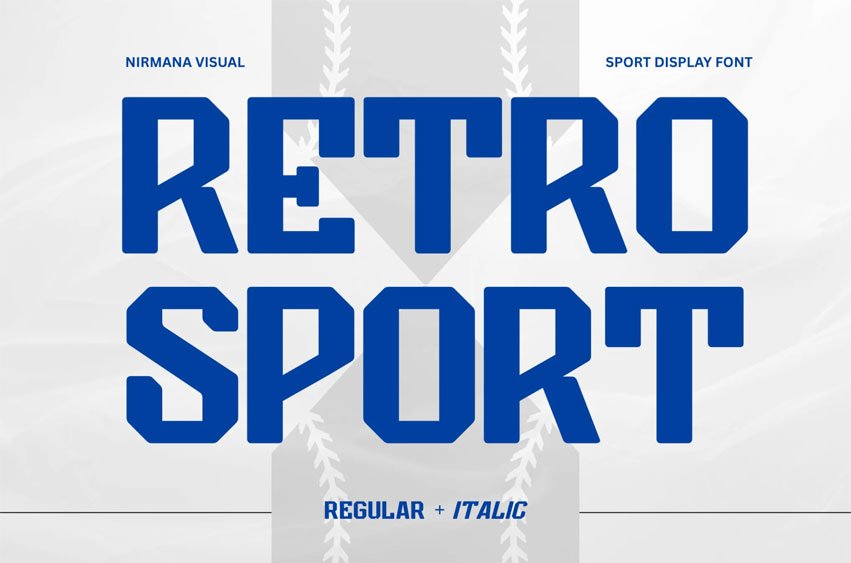
Retro Sport Font
Retro Sport Font offers beautiful typographic harmony for a diversity of design projects, including logos & branding, social media posts, advertisements & product designs.